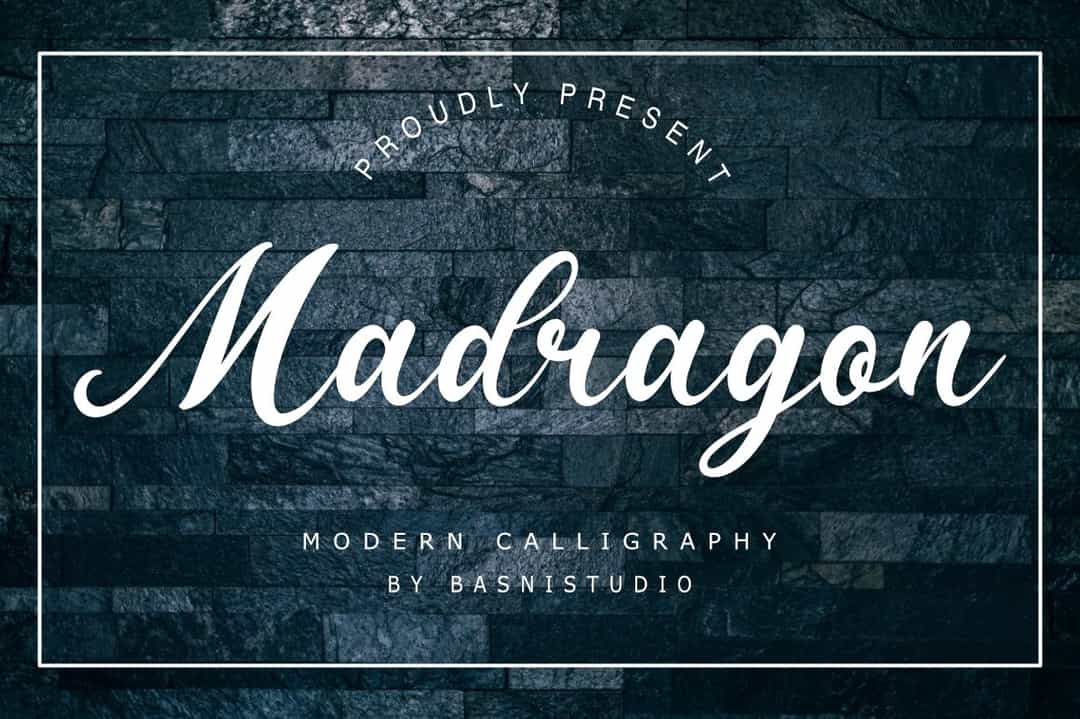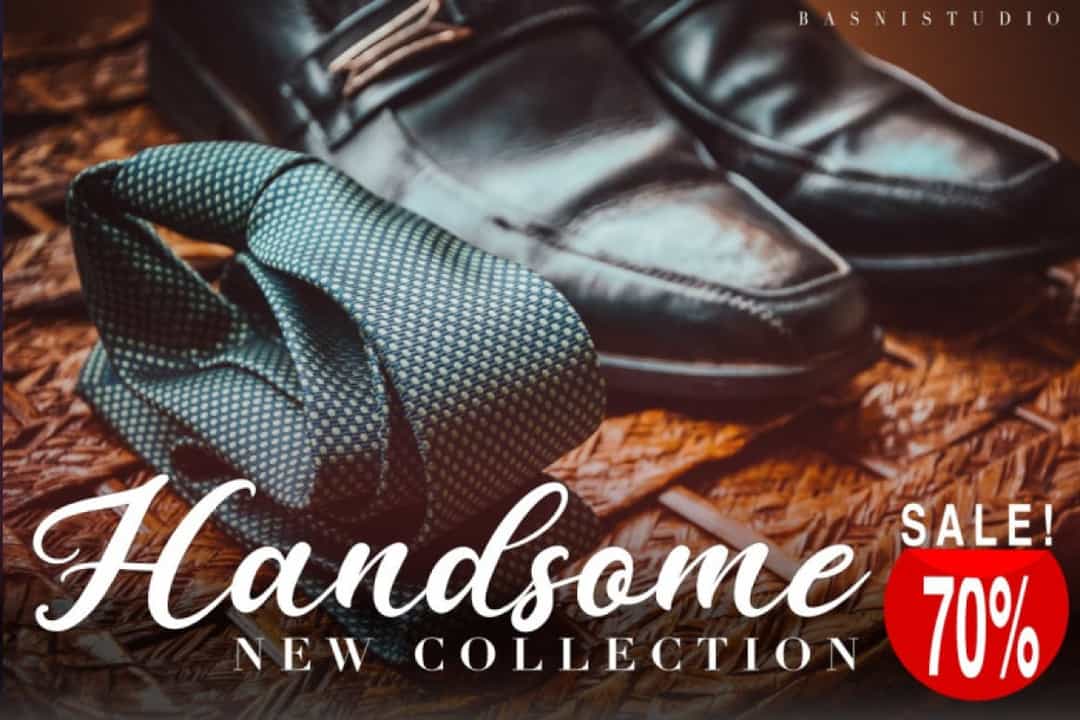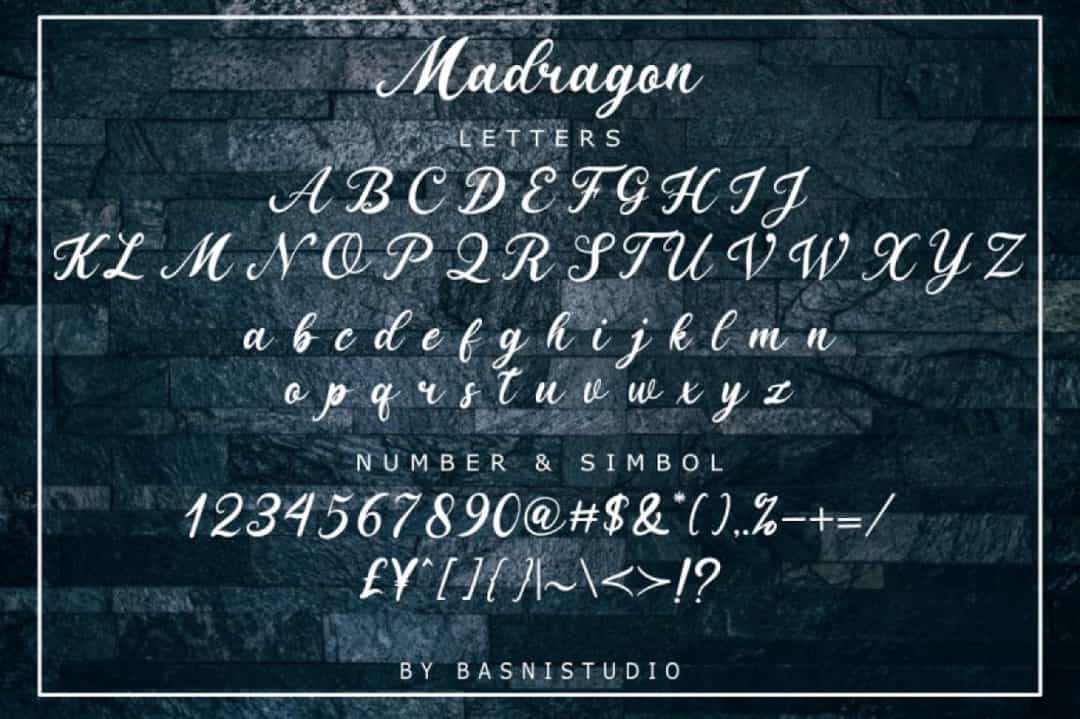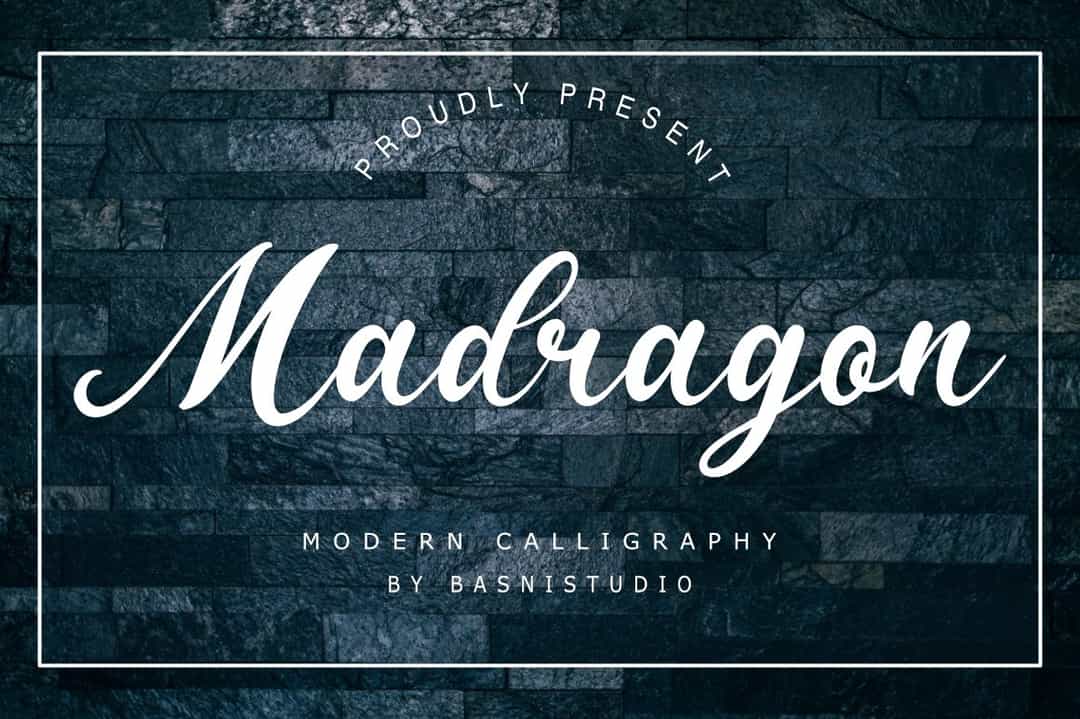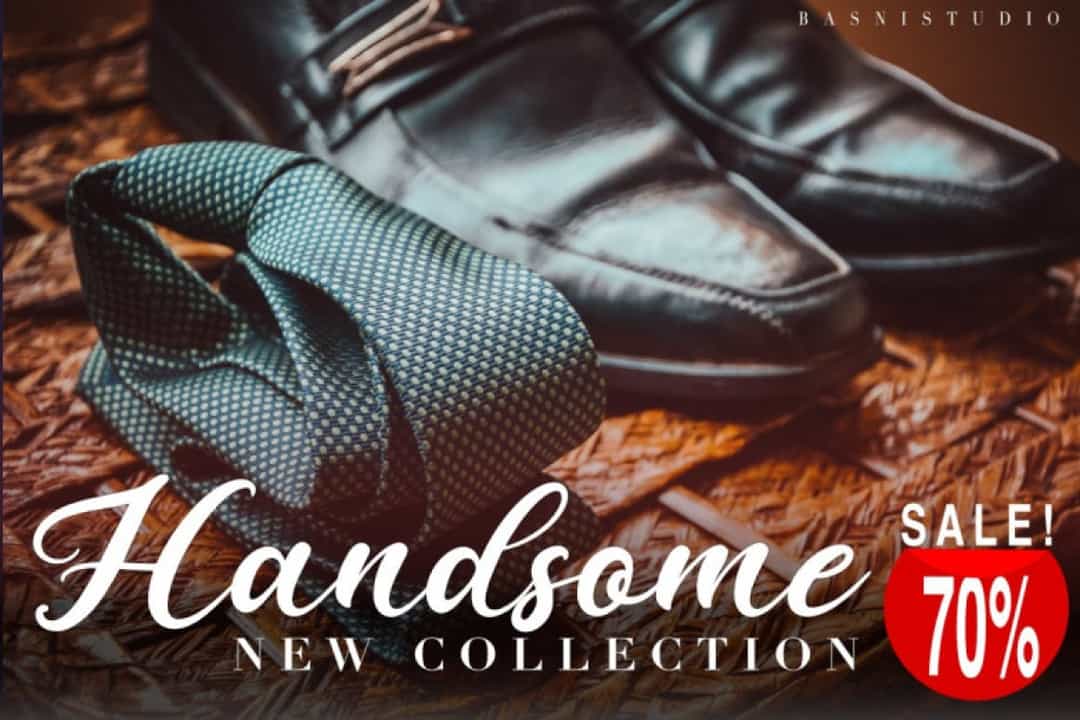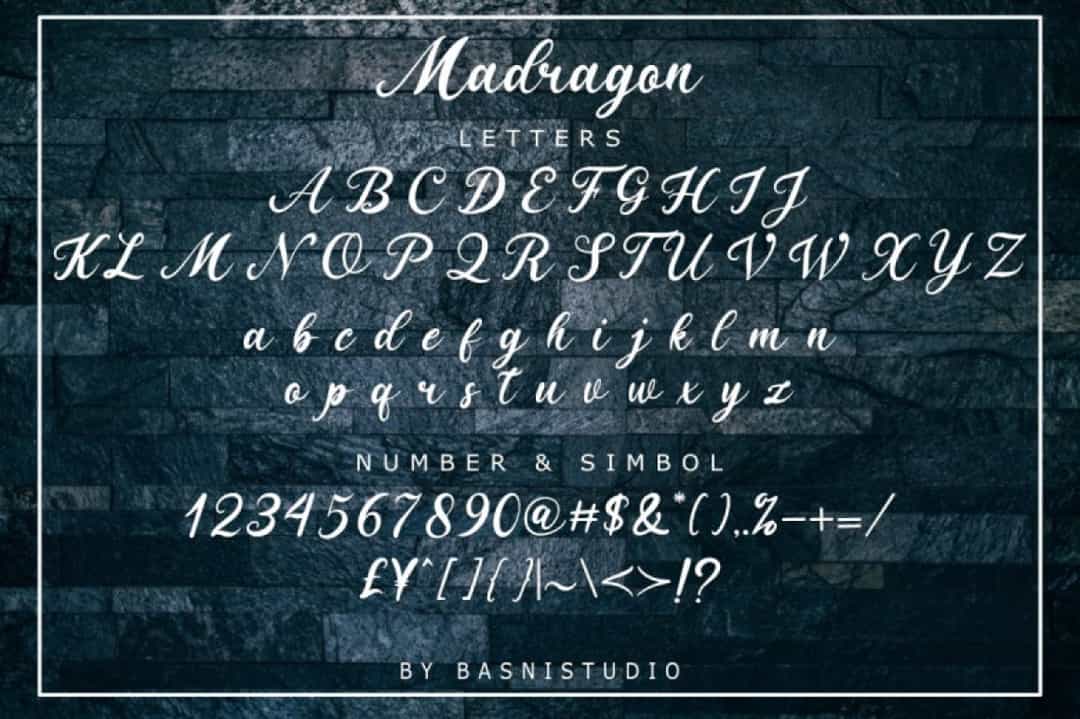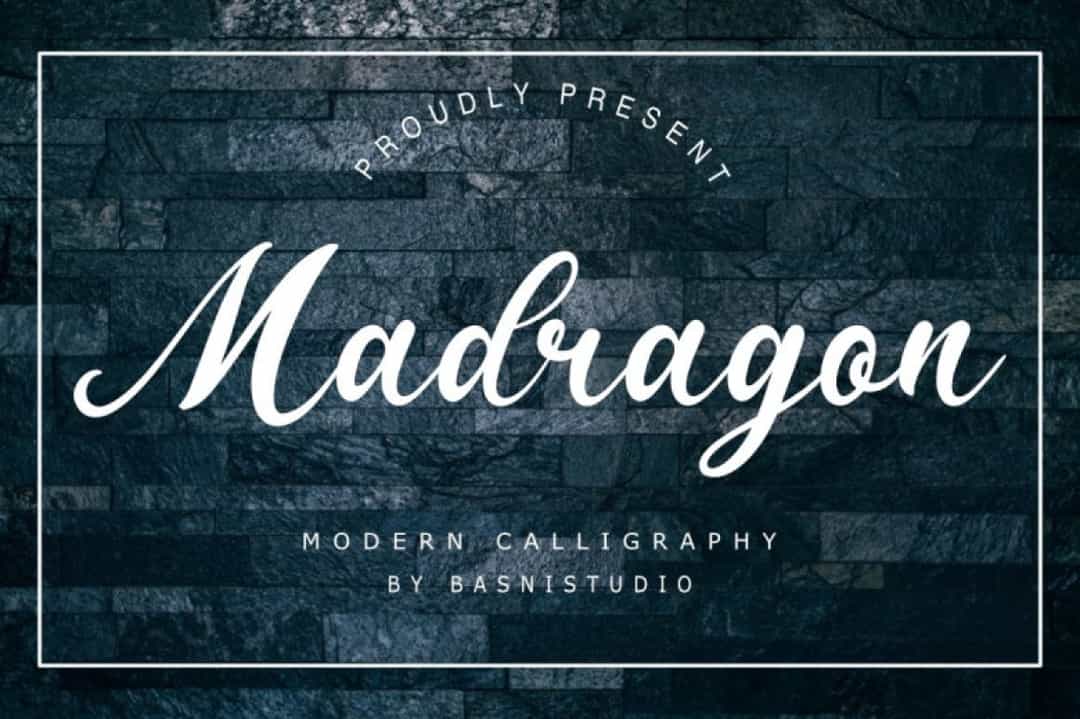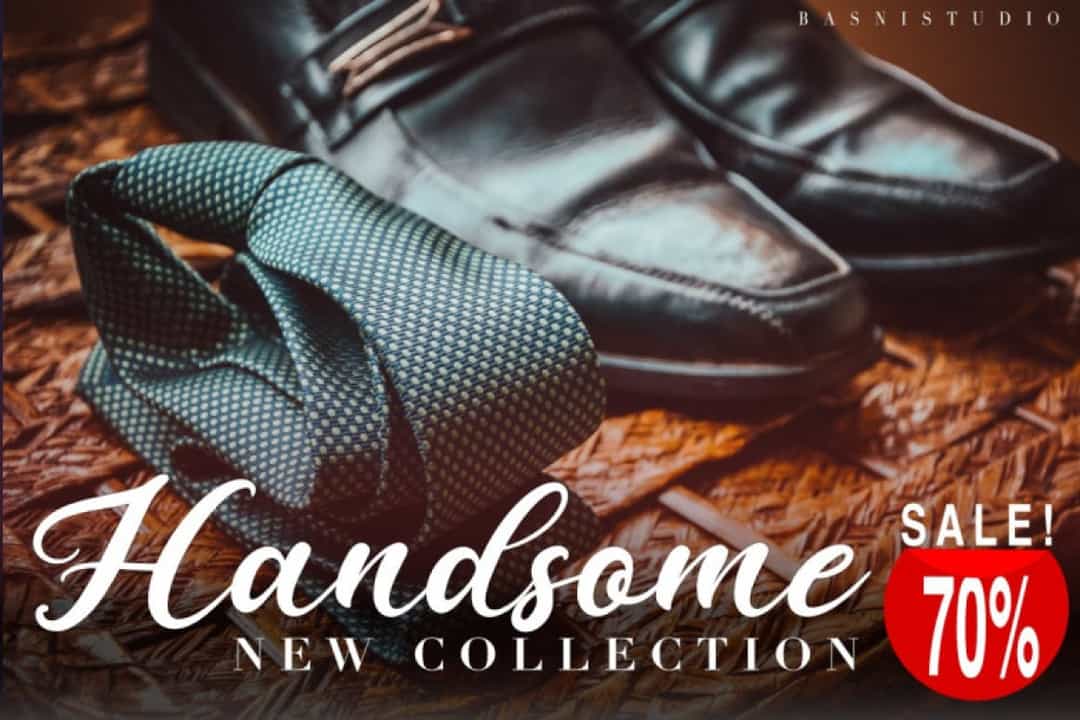
Madragon Modern Calligraphy script Font, created by Precision and Stylish is ideal for branding applications, websites or editorial layouts. This font includes all characters including punctuation support in multiple languages and binding features – these features can all be accessed using software that supports OpenType fonts.